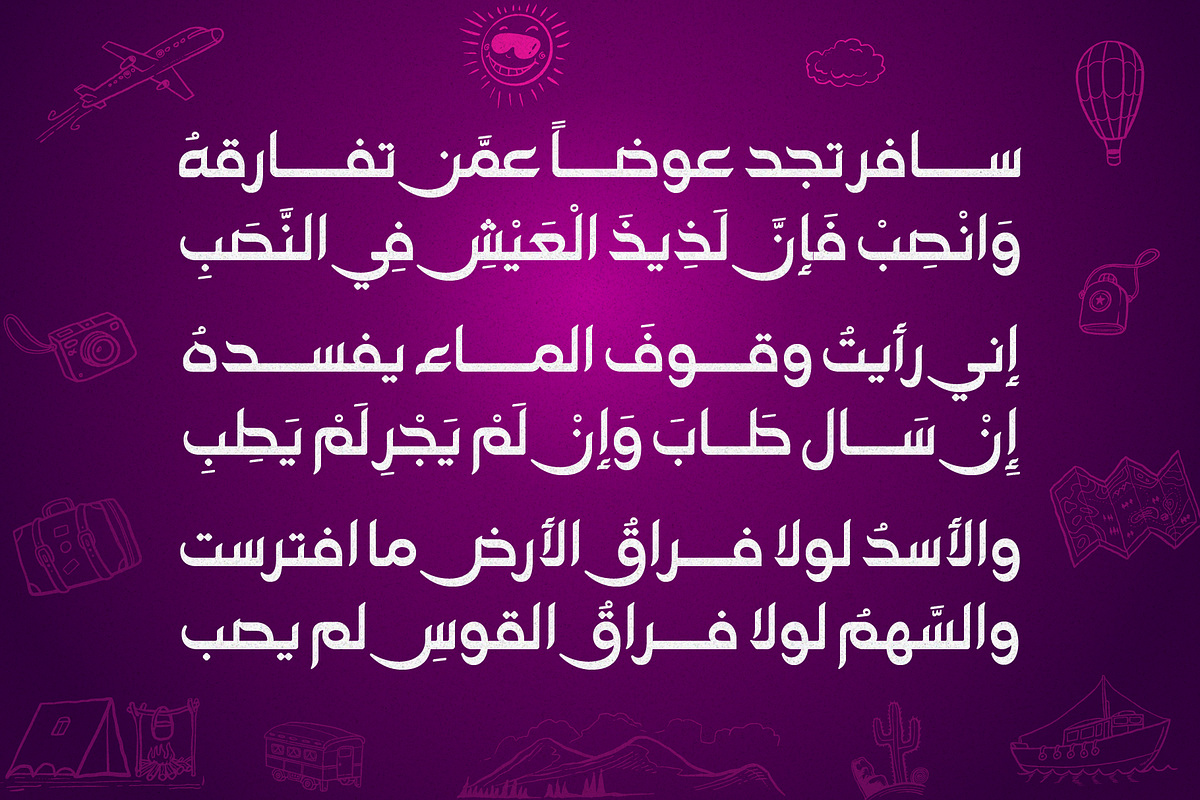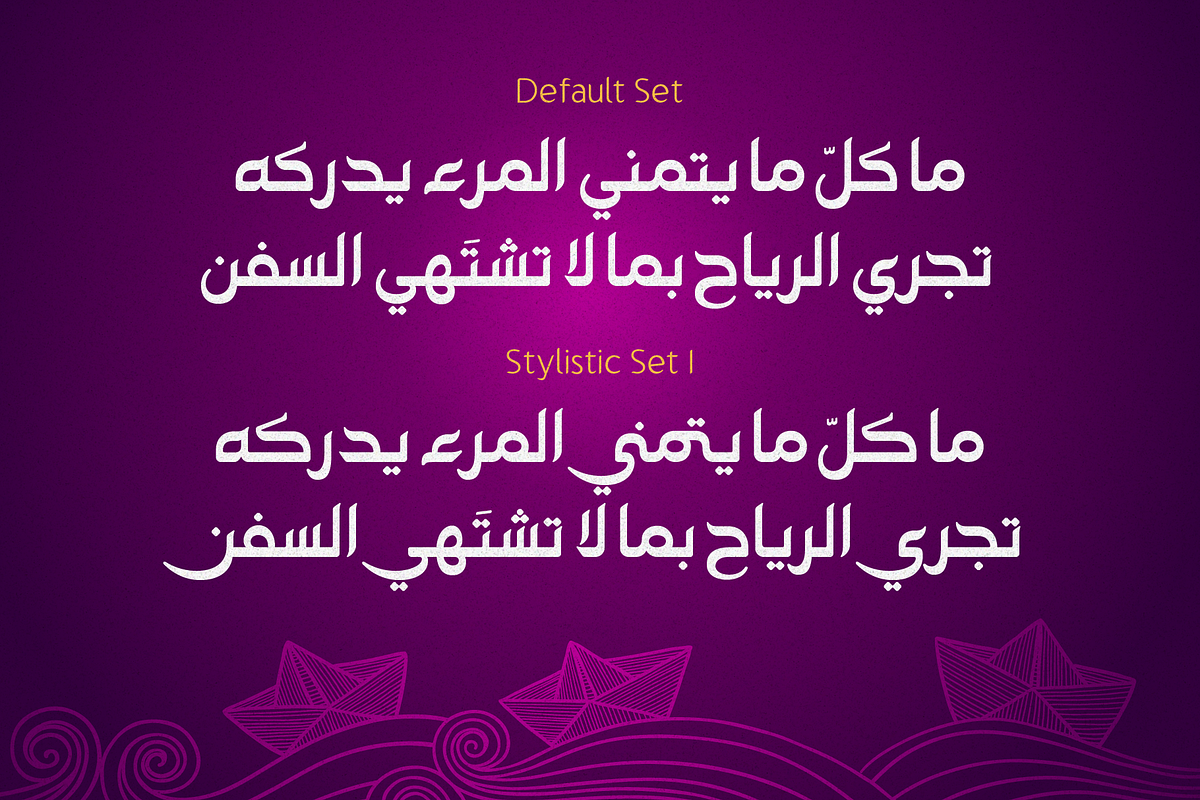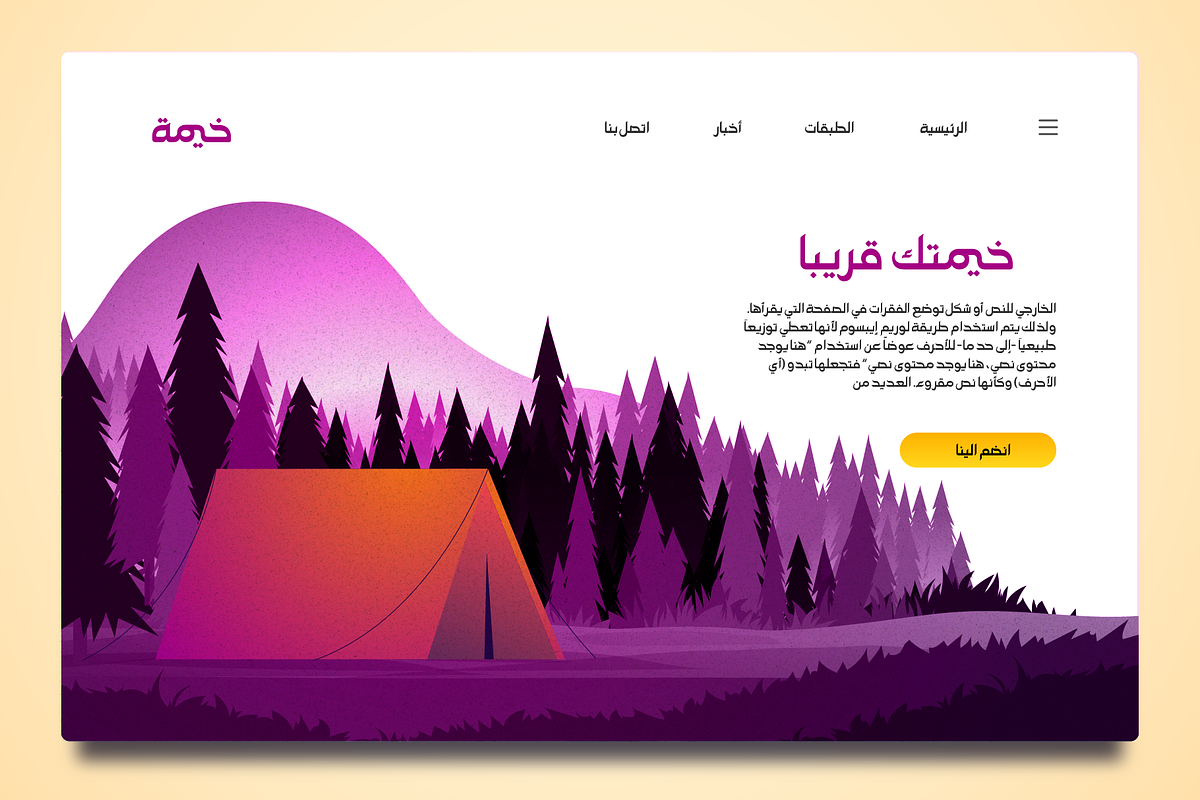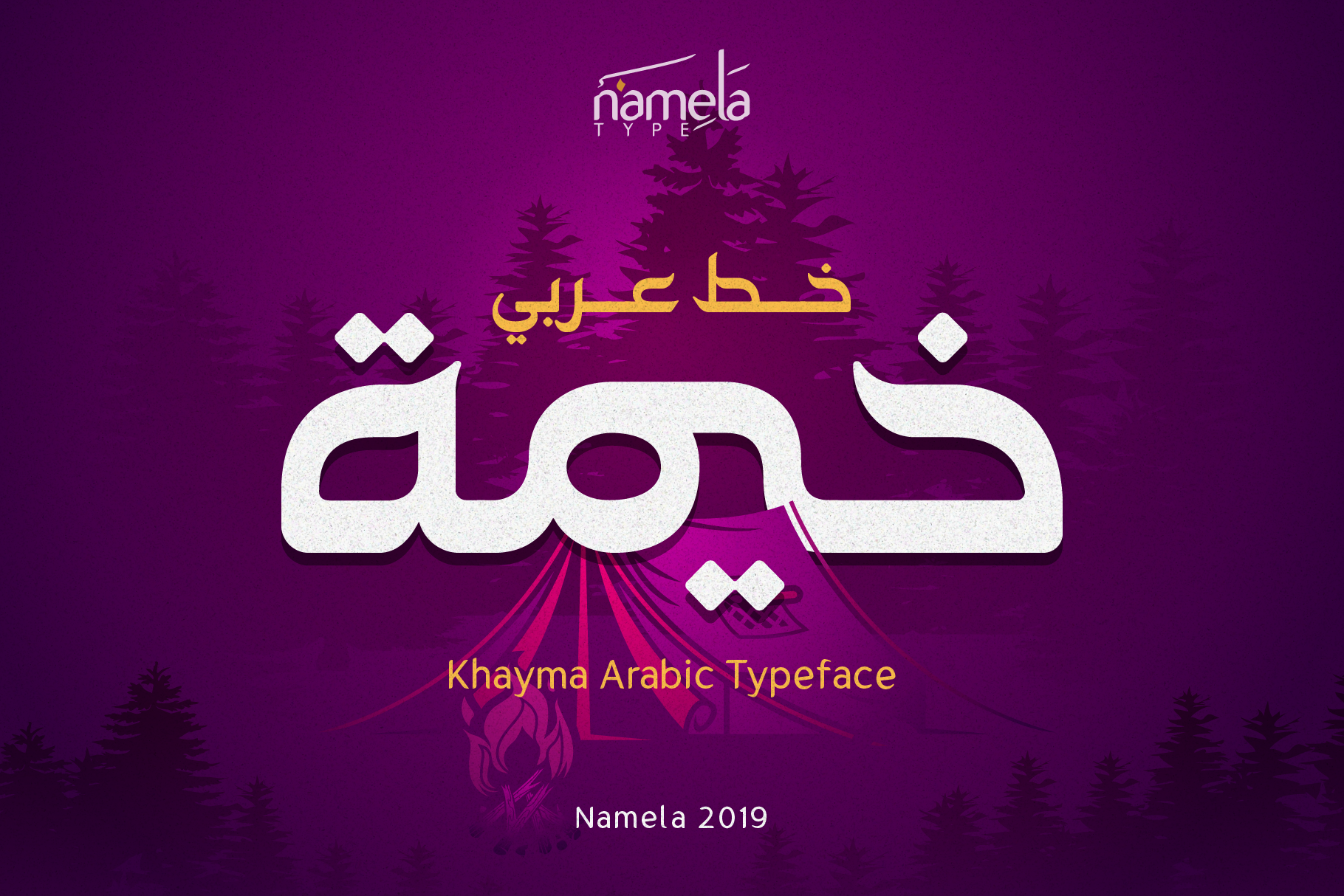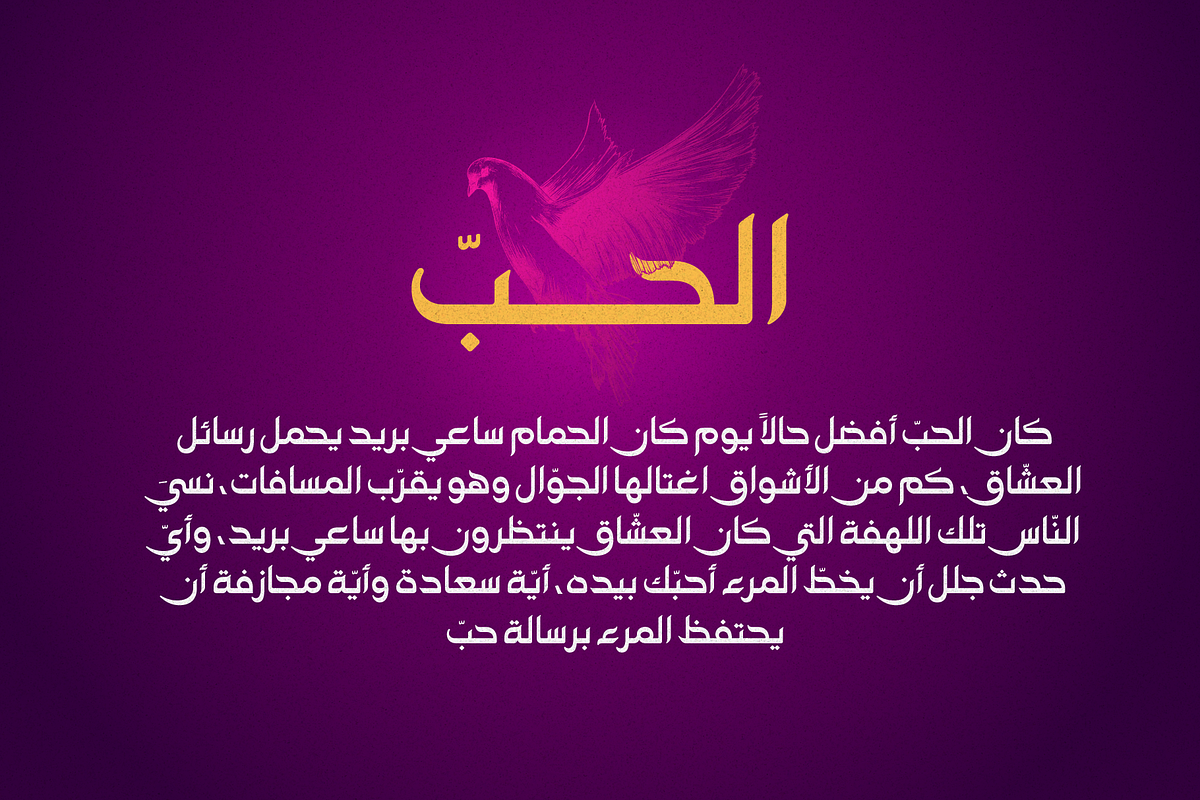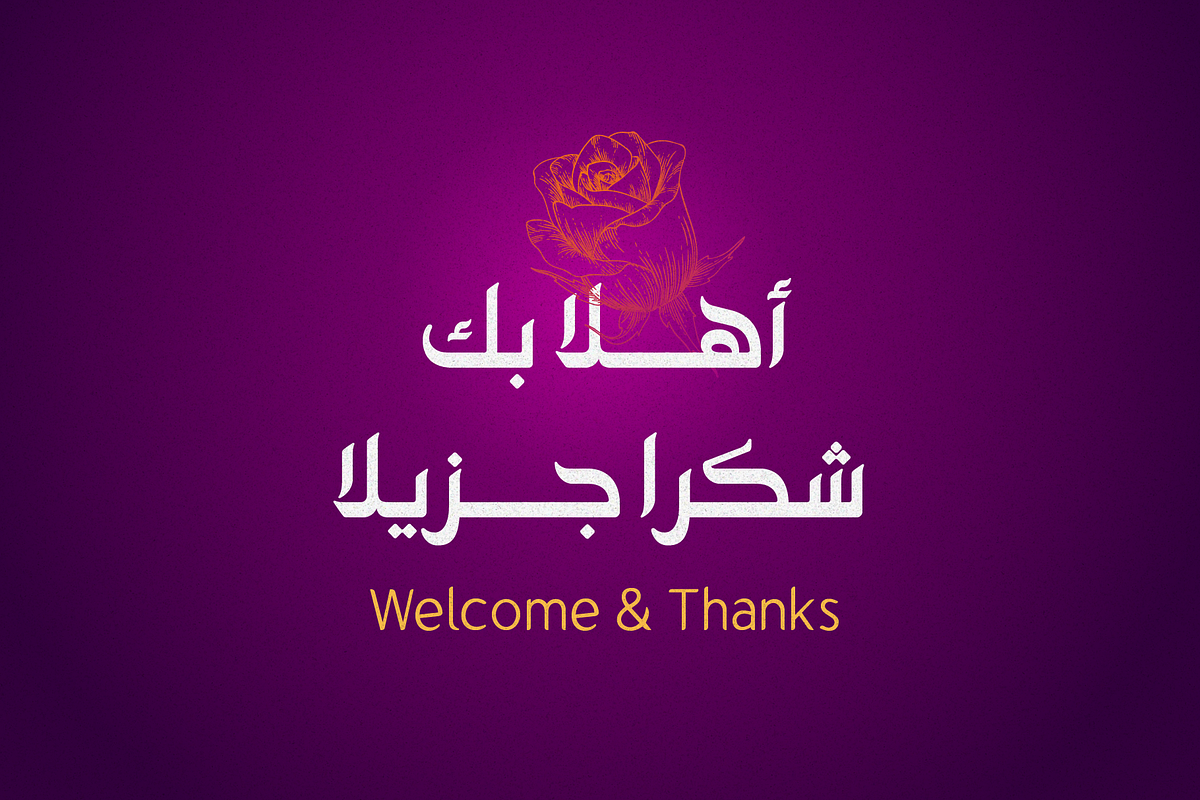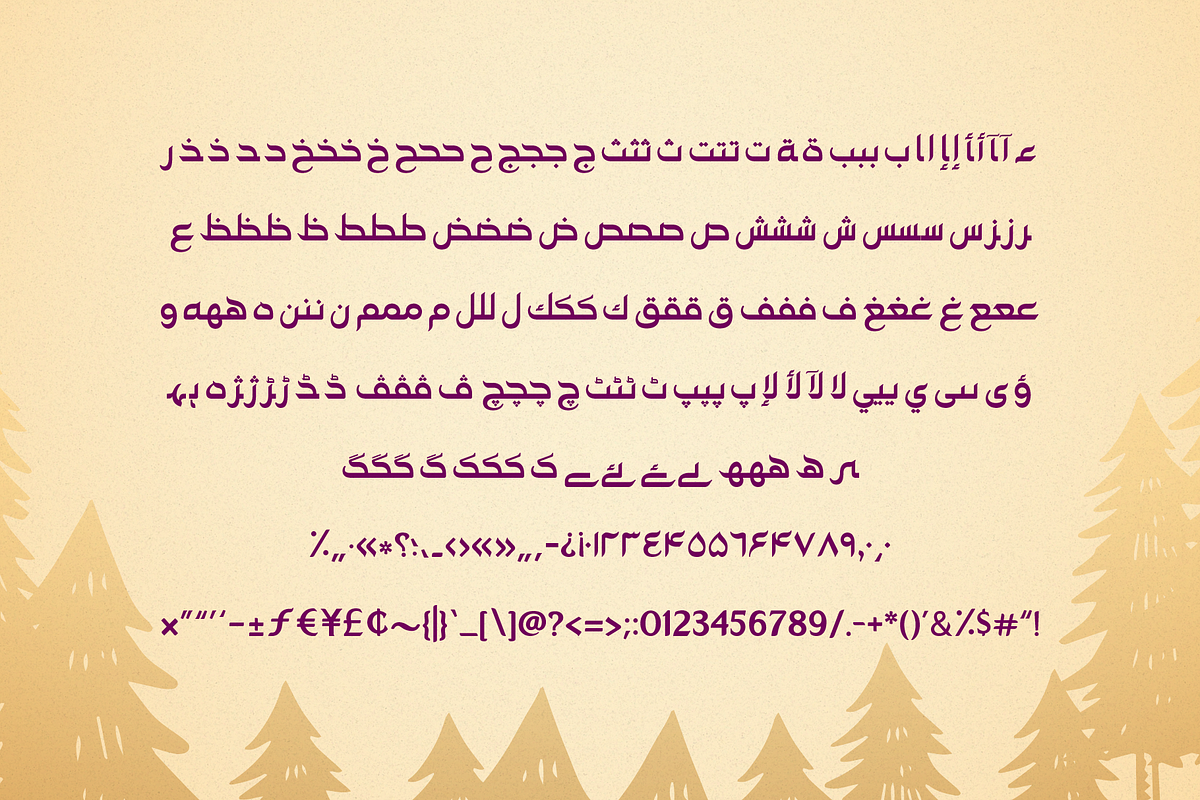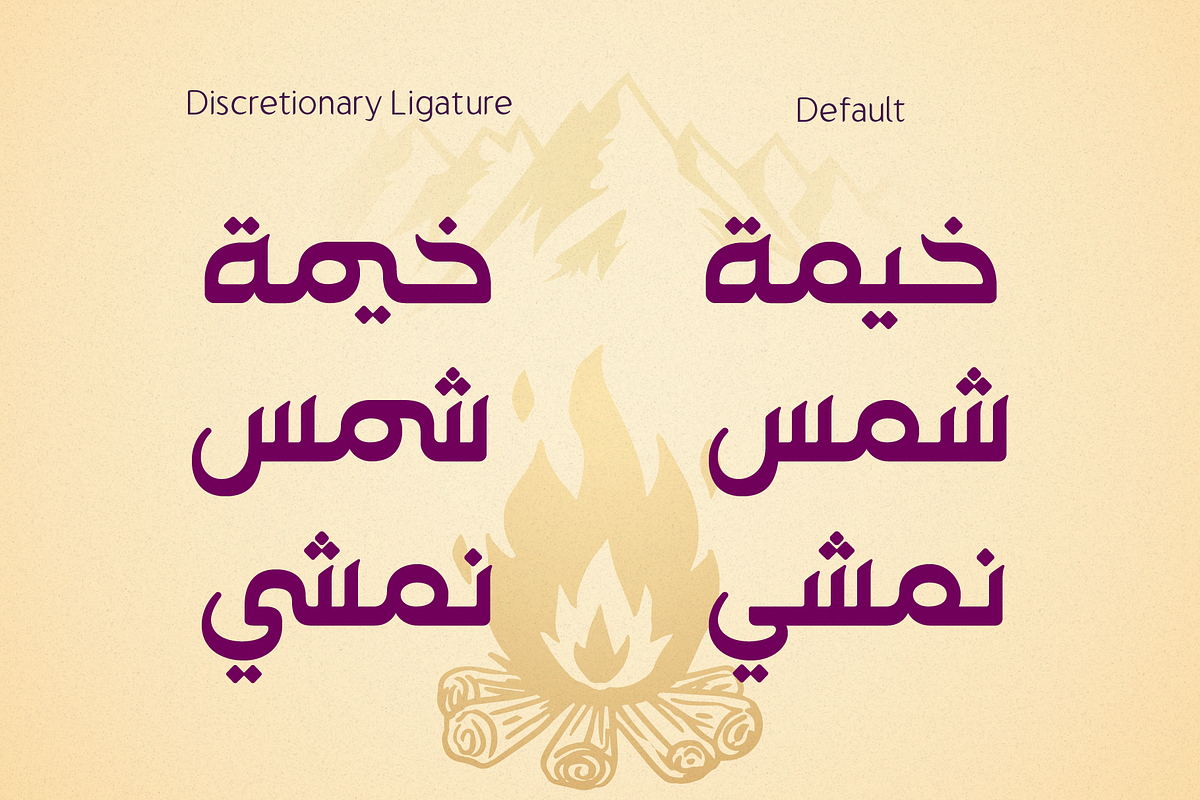
Khayma - Arabic Font
Khayma is an arabic display font with the Kufi style. Khayma is an Arabic with mean is tent or flexible shelter, as the name suggests, this font is very flexible for all your design needs.